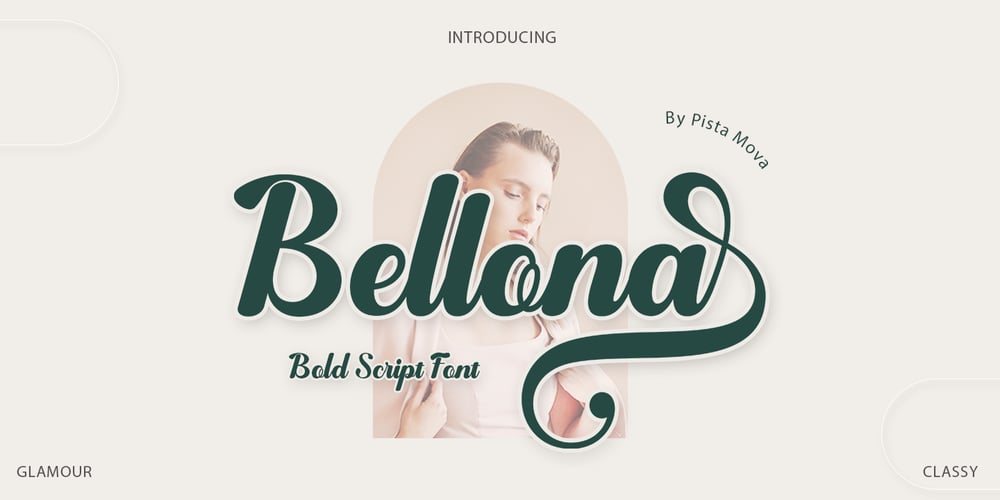
Bellona Font Family was designed by Haikal Juanda and published by Pista Mova. Bellona contains 1 styles and family package options. BellonaIntroducing the new vintage bold script “Bellona”. Inspired by retro typography from the 80s combined with a bold typography style. Comes with an open type feature with lots of alternates and finishes, it helps you create great fonts.Bellona best use for Logotype, headings, covers, posters, logos, quotes, product packaging, headers, merchandise, social media & greeting cards and more.This font also supports multiple languages.To access alternative glyphs, you will need a program that supports OpenType features such as Adobe Illustrator CS, Adobe Photoshop CC, Adobe Indesign and Corel Draw.Equipped with features:- Uppercase- Lowercase- Alternative- Numbers, Punctuation and Symbols- Ligature- Multilingual support.Happy Creative!Thank You!